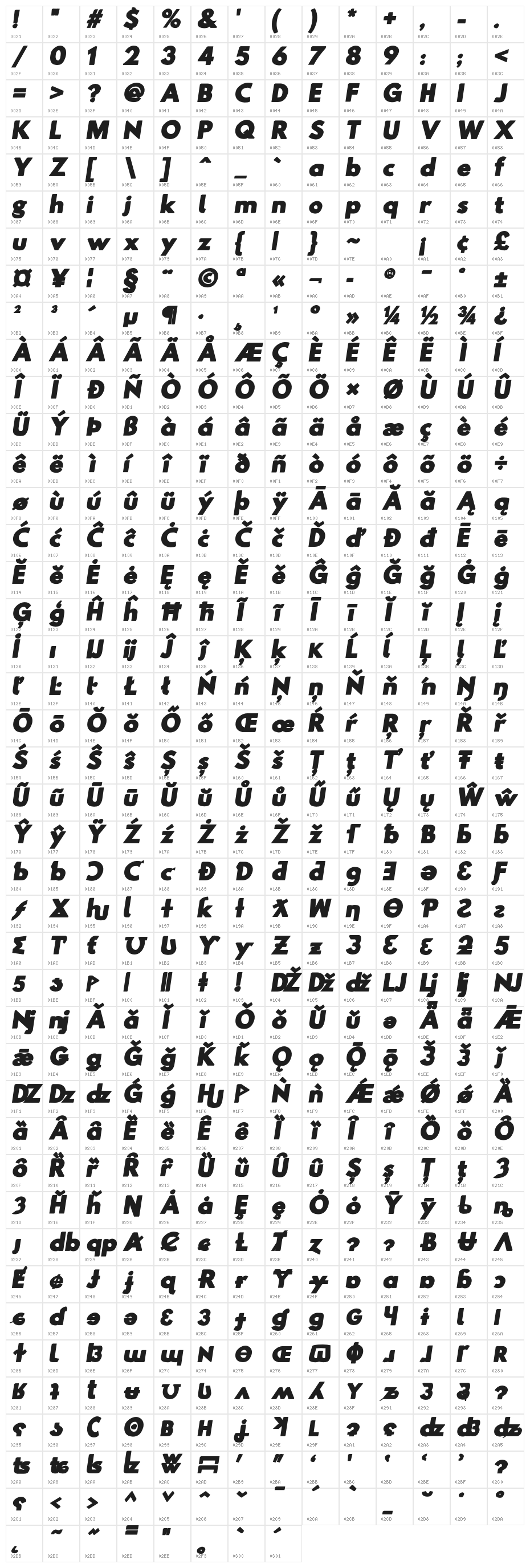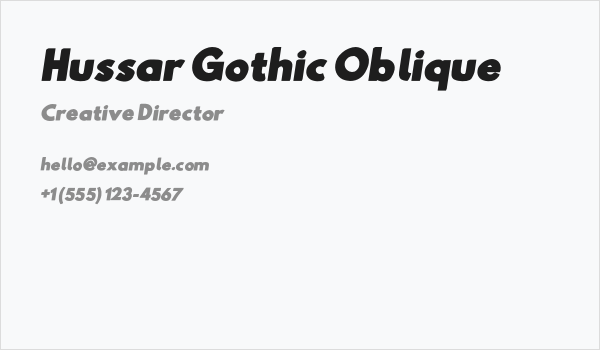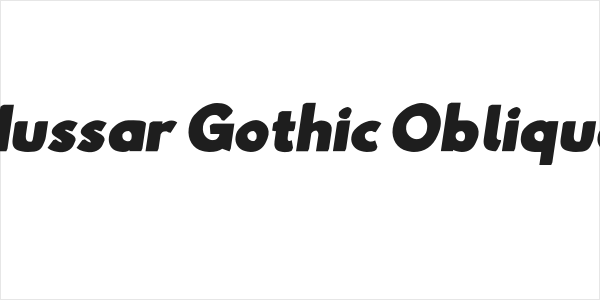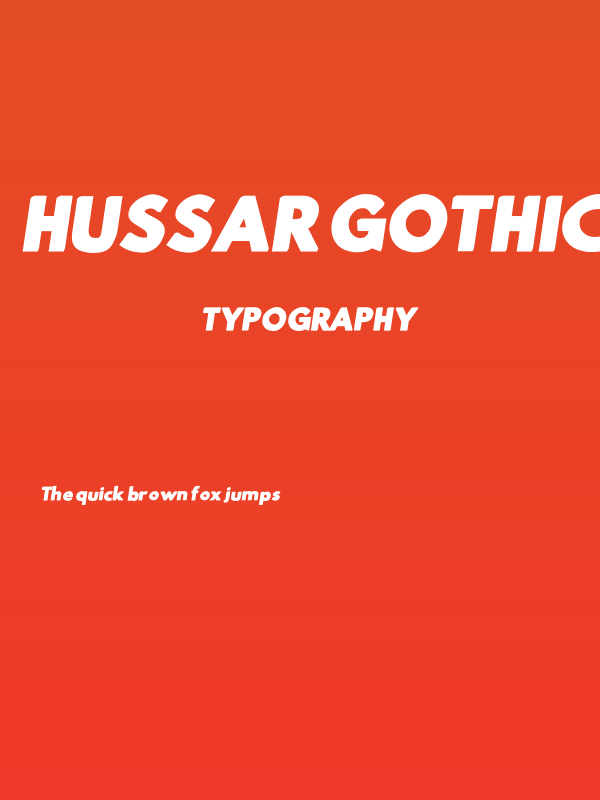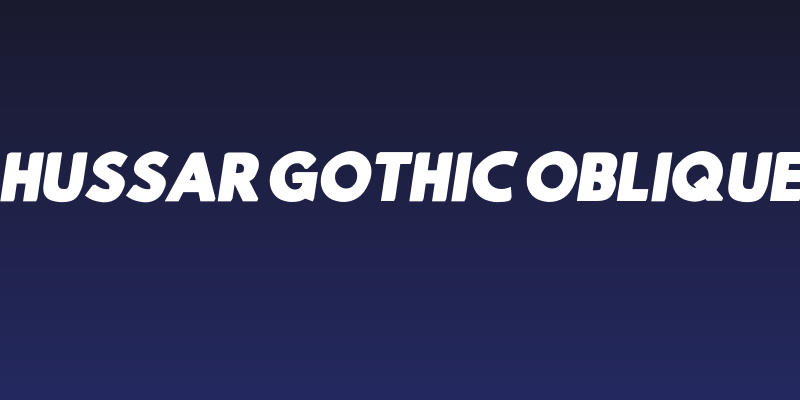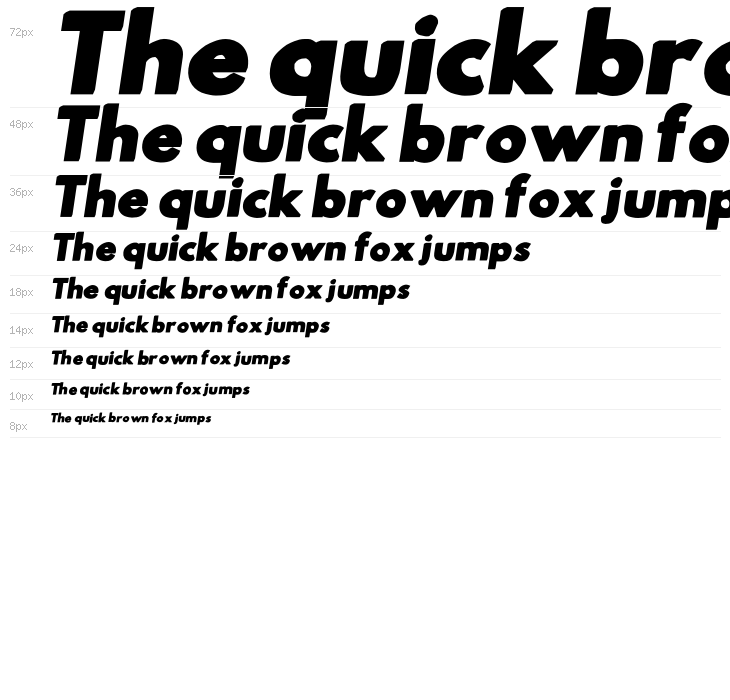
Hussar Gothic Oblique Font
Hussar Gothic Oblique Description
This font features a bold and dynamic style with a distinct oblique slant, giving it a sense of motion and energy. The characters are robust and well-defined, with a consistent thickness throughout, which enhances readability. The uppercase letters are strong and commanding, while the lowercase letters maintain a playful yet professional appearance. The numerals are clear and easily distinguishable, making them suitable for various applications. Special characters are included, adding versatility to the font's use. Overall, the font exudes a modern and impactful aesthetic, suitable for making bold statements.